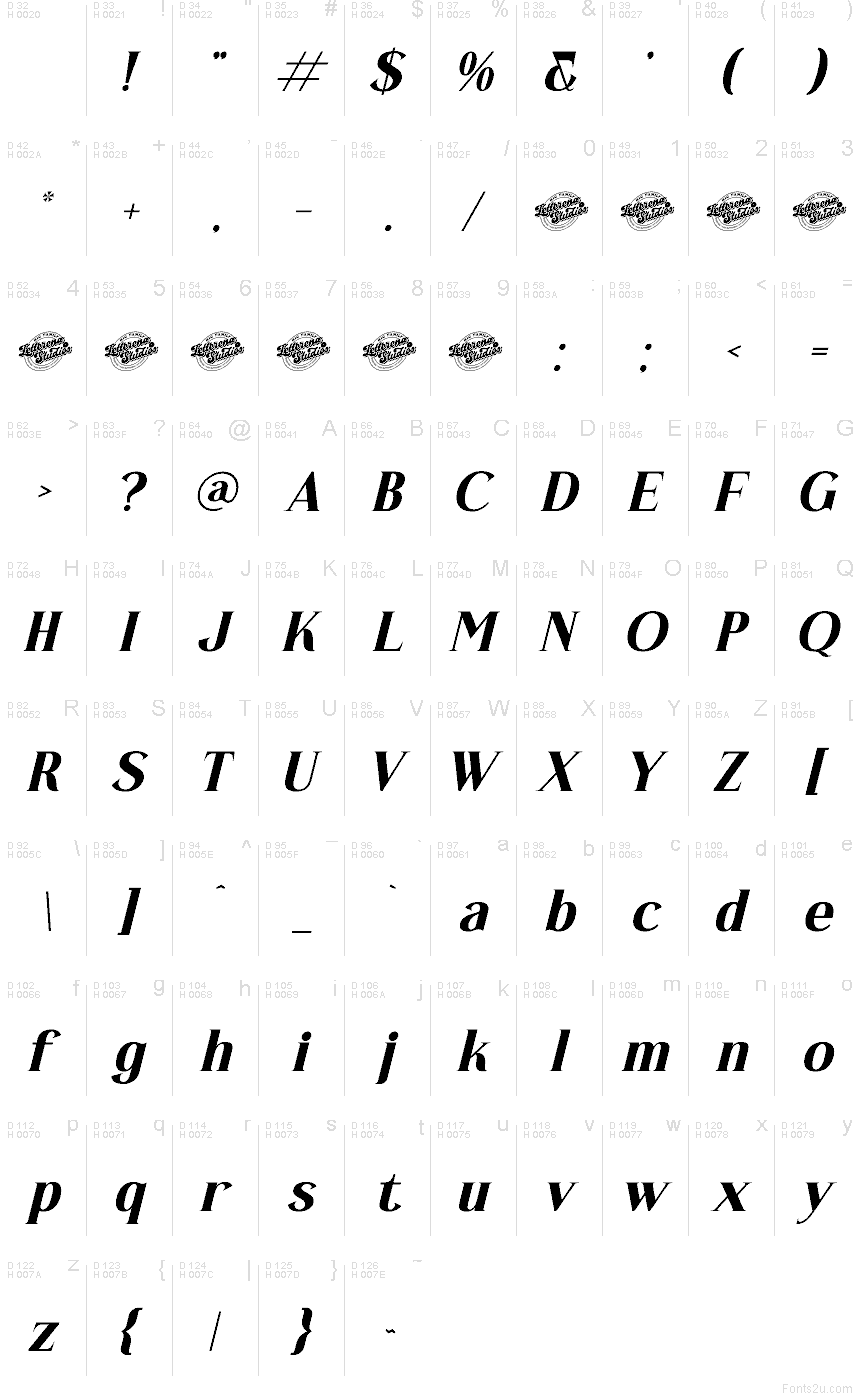
Sunny Oasis DEMO VERSION Italic
Sunny Oasis, from Letterena Studios, is a free high-contrast serif italic with a polished fashion-editorial mood. The letters lean with real grace, pairing razor-thin joins and fuller strokes with a sweeping S and a long, tapering y that give the font a refined, slightly dramatic flow.
It feels at home in magazine mastheads, beauty packaging, boutique branding, invitation headings, and book cover titles, where that slanted rhythm can carry a short line on style alone. As a free font, Sunny Oasis also suits pull quotes, title cards, and monogram-led marks, especially when you want elegance that still feels a little airy and modern.